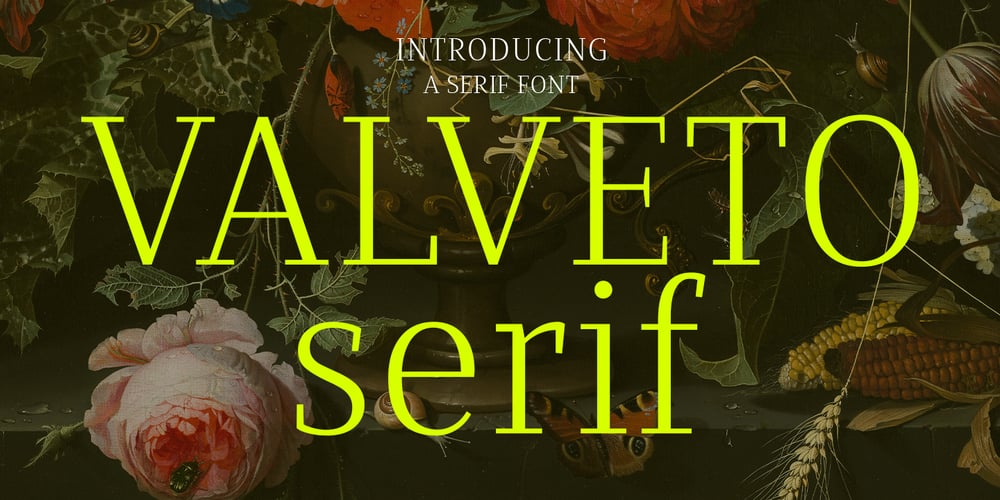
Valveto Font Family was designed by Gilang Maulana and published by Maulana Creative. Valveto contains 2 styles and family package options. Valveto is a modern display serif. With light and consist serif stroke, fun character with a bit of ligatures and alternates. To give you an extra creative work. Valveto font support multilingual more than 100+ language. This font is good for logo design, Social media, Movie Titles, Books Titles, a short text even a long text letter and good for your secondary text font with sans or serif. Make a stunning work with Valveto font. Cheers, Maulana Creative